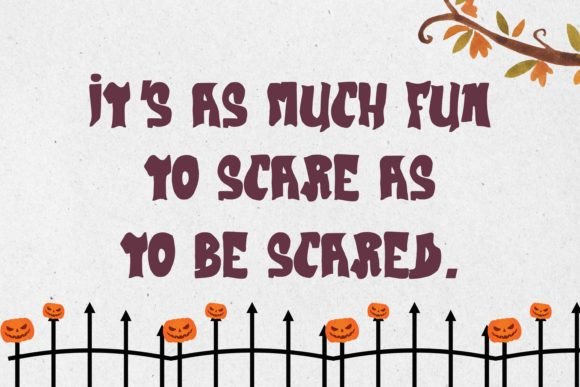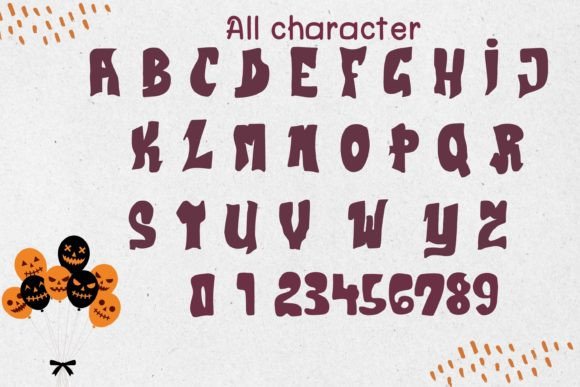
Unleash the Spook: Elevate Your Halloween Projects with the Ghoulish Font
As the witching hour approaches, designers and crafters are on the lookout for the perfect typography to add a spine-tingling touch to their Halloween-themed projects. Look no further than the Ghoulish Font, a cool and creepy display font that’s sure to cast a spell on your audience. In this article, we’ll dive into the details of this fantastic font and explore how it can become a valuable asset in your font library.
The Perfect Blend of Spooky and Stylish
The Ghoulish Font is a masterfully crafted typeface that strikes the perfect balance between eerie and elegant. Its unique design makes it an ideal choice for a wide range of Halloween-themed projects, from invitations and decorations to social media graphics and marketing materials. Whether you’re creating a haunting Halloween party invitation or a spooky seasonal sale promotion, this font is sure to add a touch of macabre magic to your design.
What Makes Ghoulish Font So Special?
So, what sets the Ghoulish Font apart from other display fonts on the market? Here are just a few of its standout features:
- Unique Character Design: The Ghoulish Font boasts a distinctive character design that’s both spooky and stylish. Its letters are carefully crafted to evoke a sense of eeriness, making it perfect for Halloween-themed projects.
- Highly Versatile: Whether you’re creating a digital graphic or a print project, the Ghoulish Font is highly versatile and can be used in a variety of contexts.
- Easy to Read: Despite its spooky theme, the Ghoulish Font is surprisingly easy to read, making it a great choice for headlines, titles, and other display text.
How to Use Ghoulish Font in Your Projects
Now that we’ve covered the basics of the Ghoulish Font, let’s explore some creative ways to use it in your Halloween-themed projects:
Halloween Party Invitations
Create spooky and stylish party invitations that set the tone for a howling good time. Use the Ghoulish Font to add a creepy touch to your invitation design, and pair it with some eerie imagery to really make it stand out.
Social Media Graphics
Add a touch of Halloween flair to your social media graphics with the Ghoulish Font. Use it to create eye-catching headlines, titles, and other display text that will grab your audience’s attention.
Marketing Materials
Use the Ghoulish Font to create spooky and effective marketing materials, such as Halloween-themed sale promotions, flyers, and brochures.
Tips for Pairing Ghoulish Font with Other Design Elements
To get the most out of the Ghoulish Font, try pairing it with other design elements that complement its spooky theme. Here are a few tips:
- Use Dark Colors: Pair the Ghoulish Font with dark colors like black, purple, and orange to create a spooky and atmospheric design.
- Add Eerie Imagery: Use eerie imagery like pumpkins, ghosts, and bats to add a touch of Halloween flair to your design.
- Experiment with Textures: Add some texture to your design with elements like wood, stone, or blood to give it a more organic and eerie feel.
In conclusion, the Ghoulish Font is a fantastic addition to any font library, offering a unique blend of spooky and stylish design that’s perfect for Halloween-themed projects. With its highly versatile design, ease of use, and instant download capabilities, this font is sure to become a go-to choice for designers and crafters looking to add a touch of macabre magic to their creations. So why wait? Download the Ghoulish Font today and start creating some spooktacular designs!